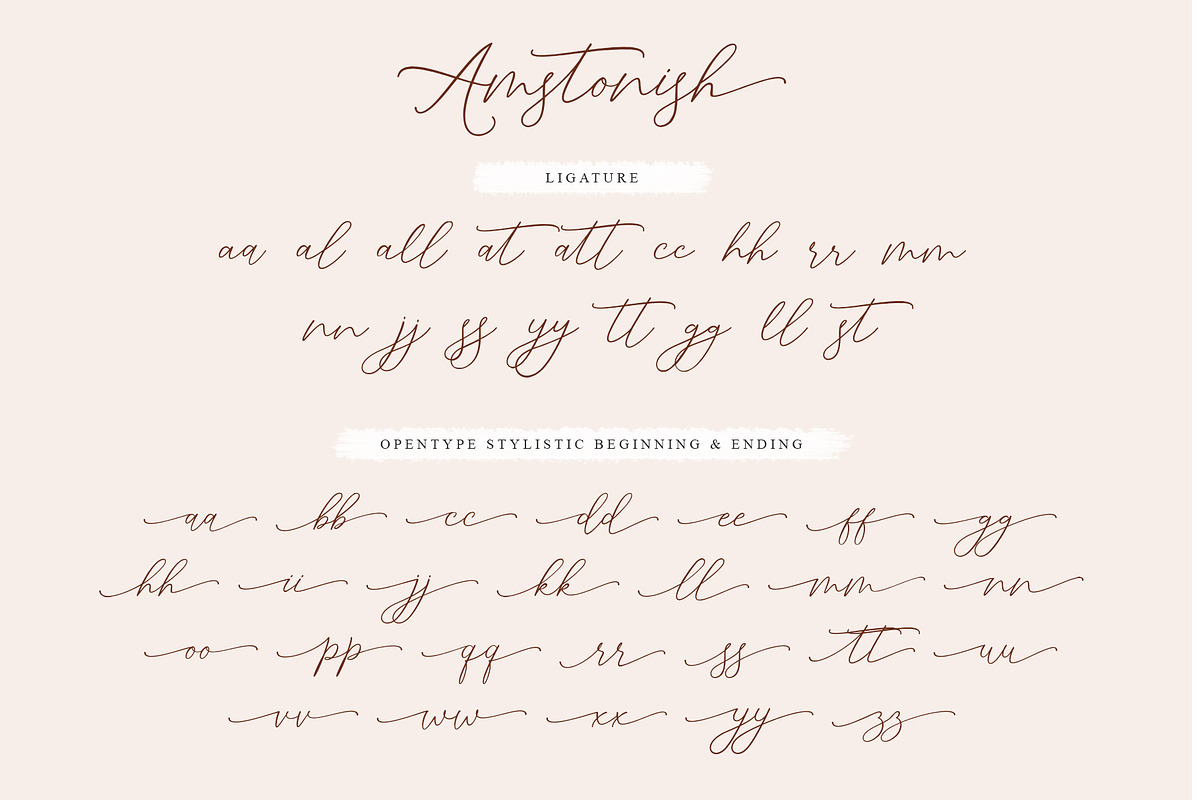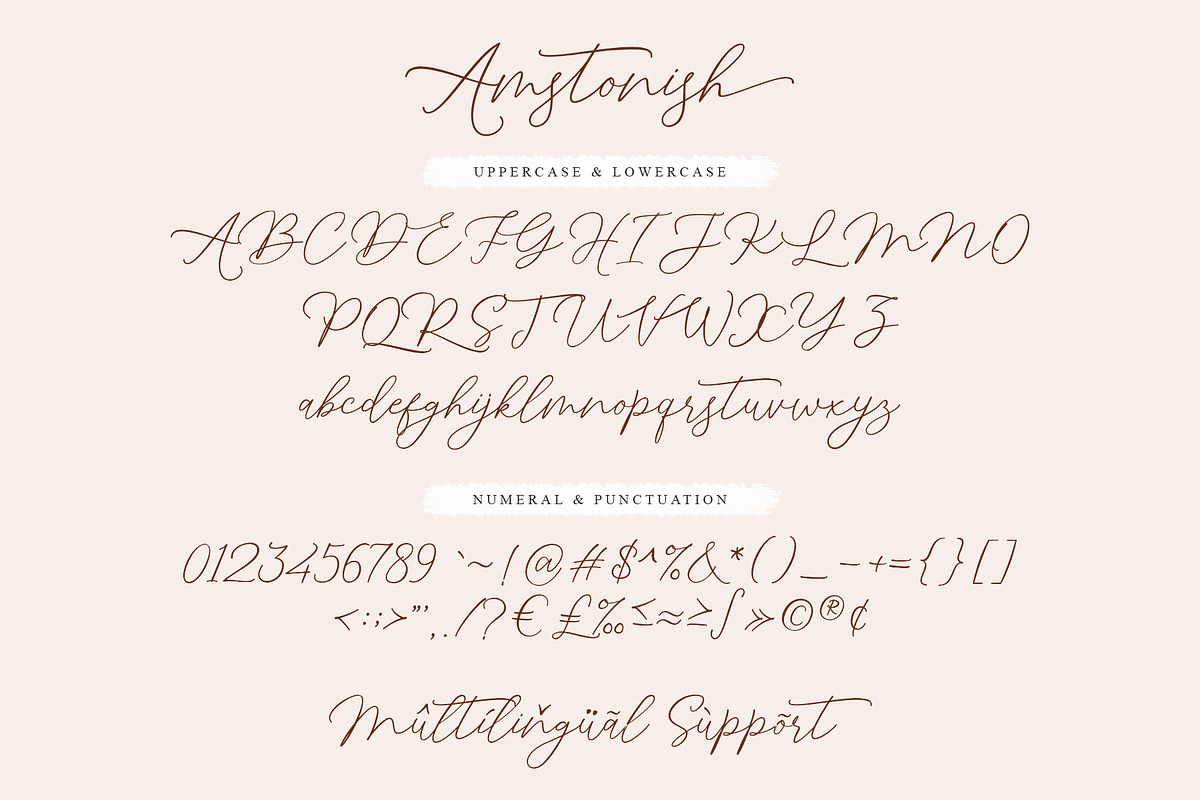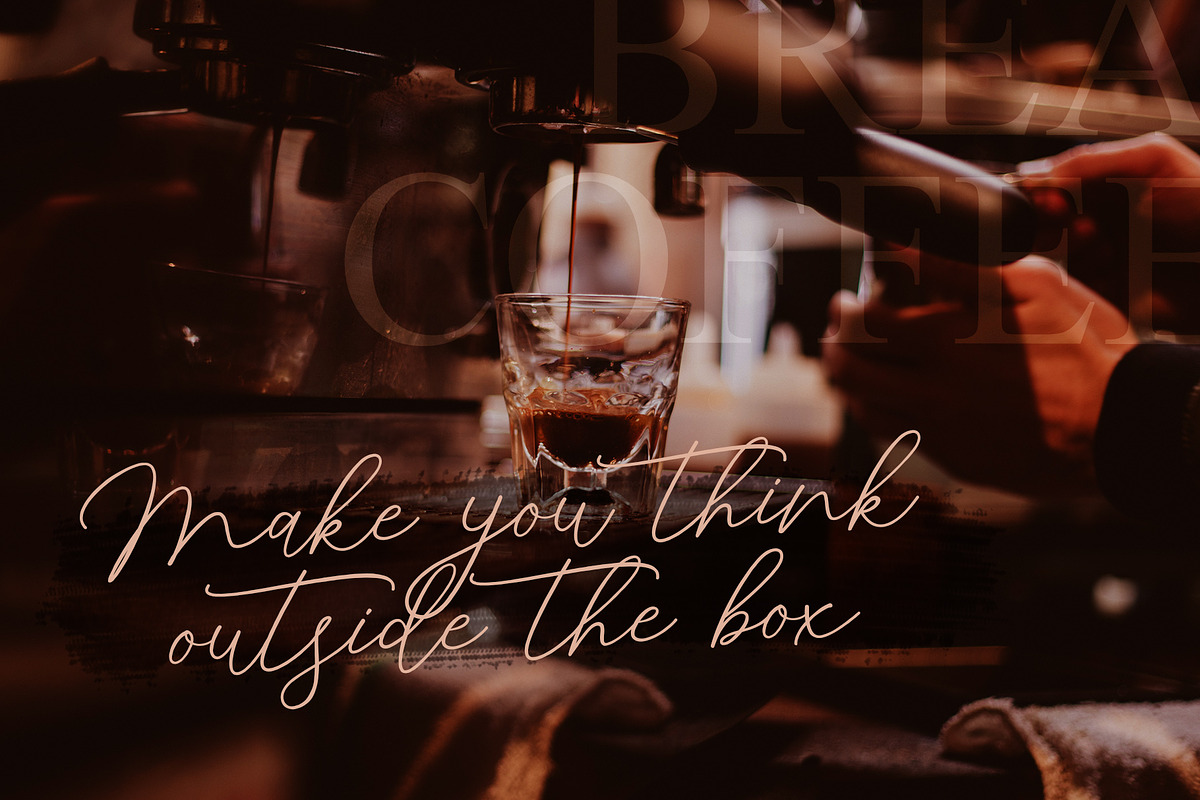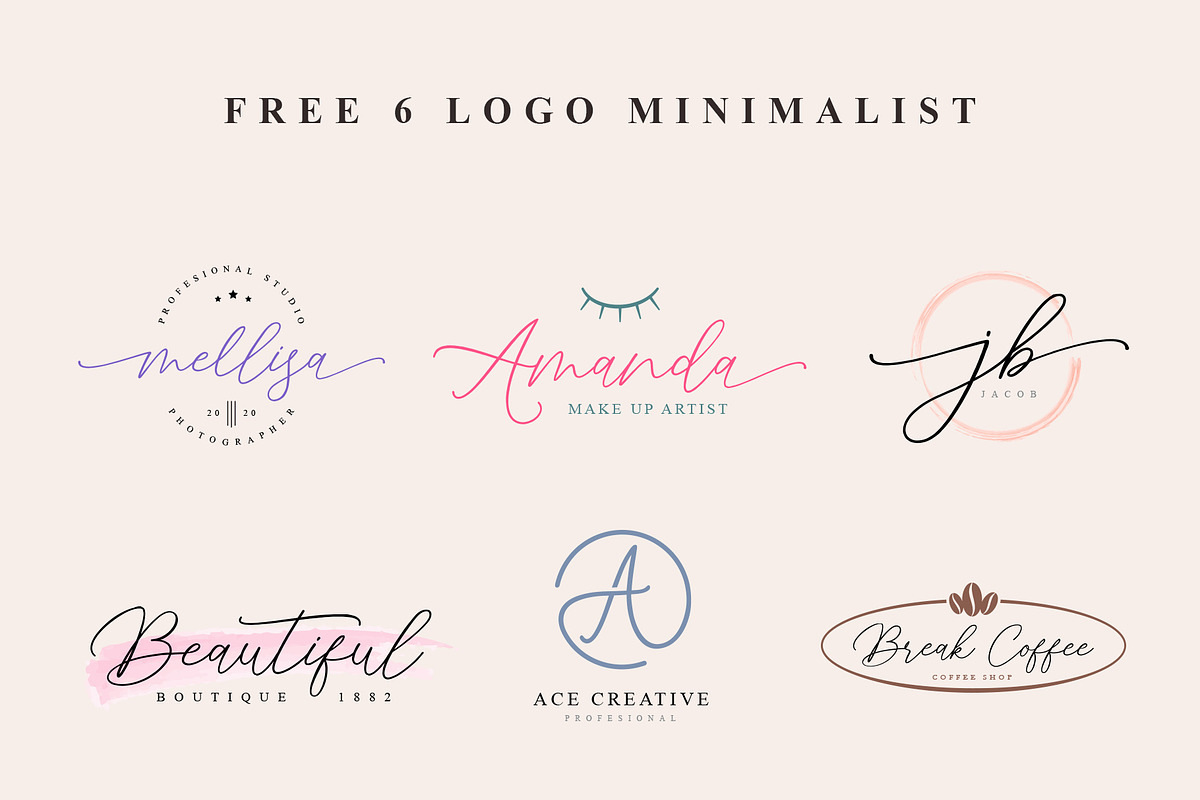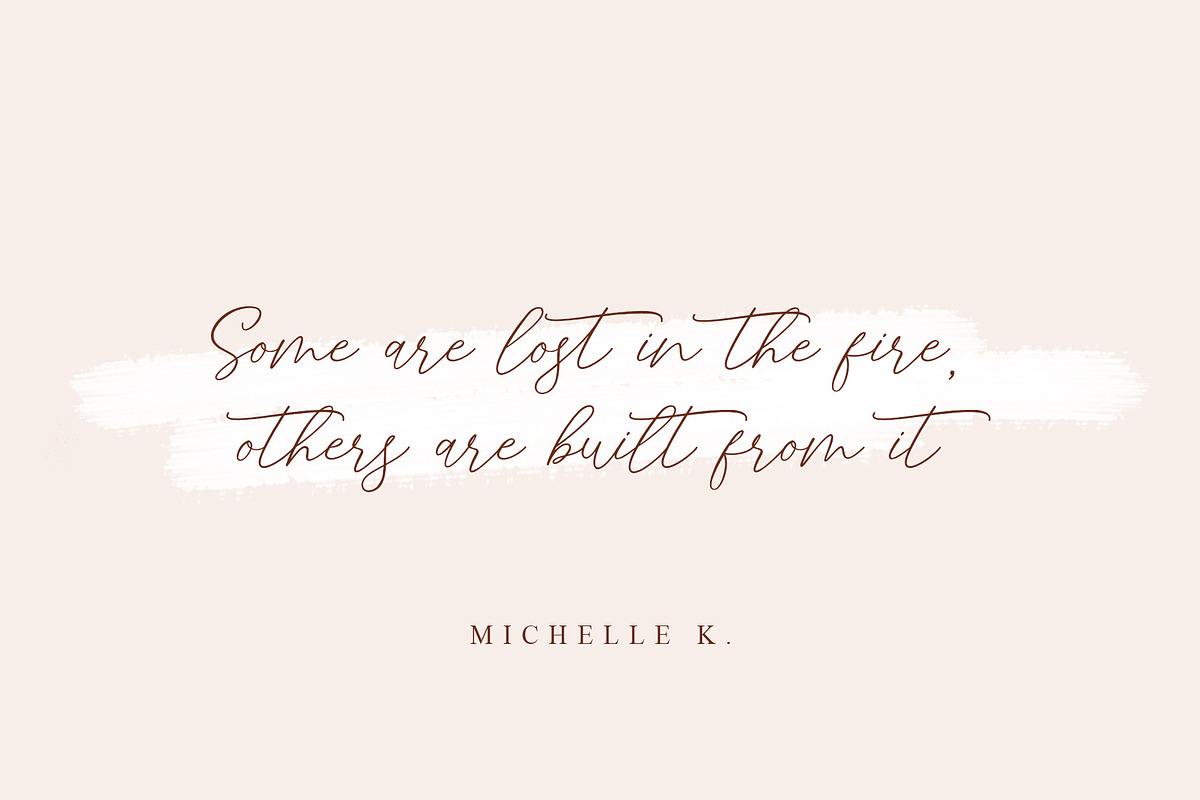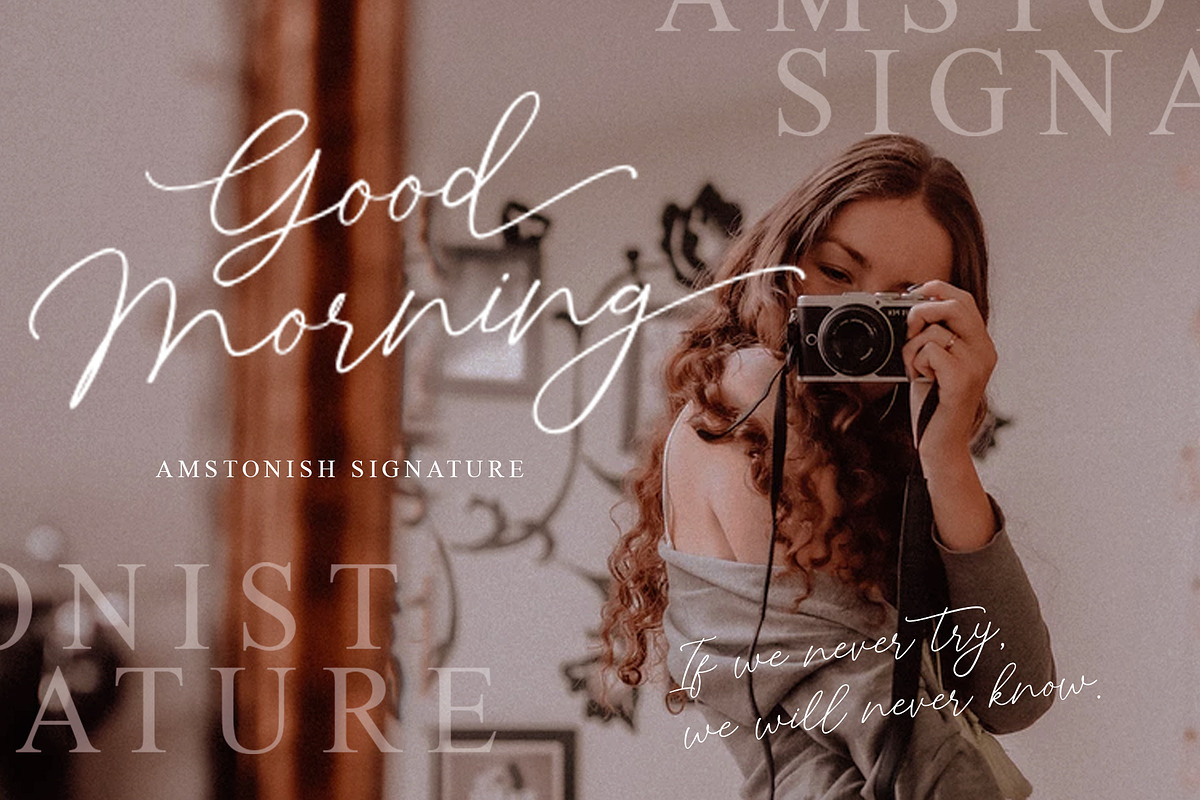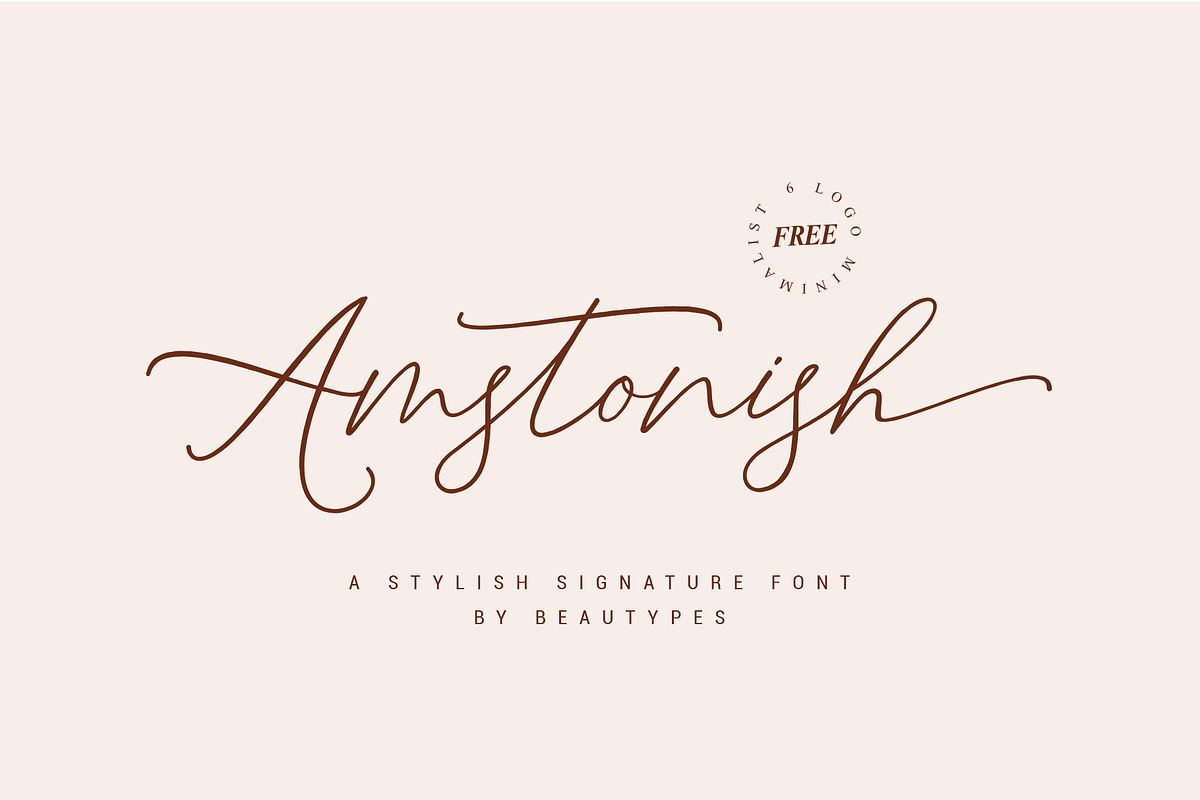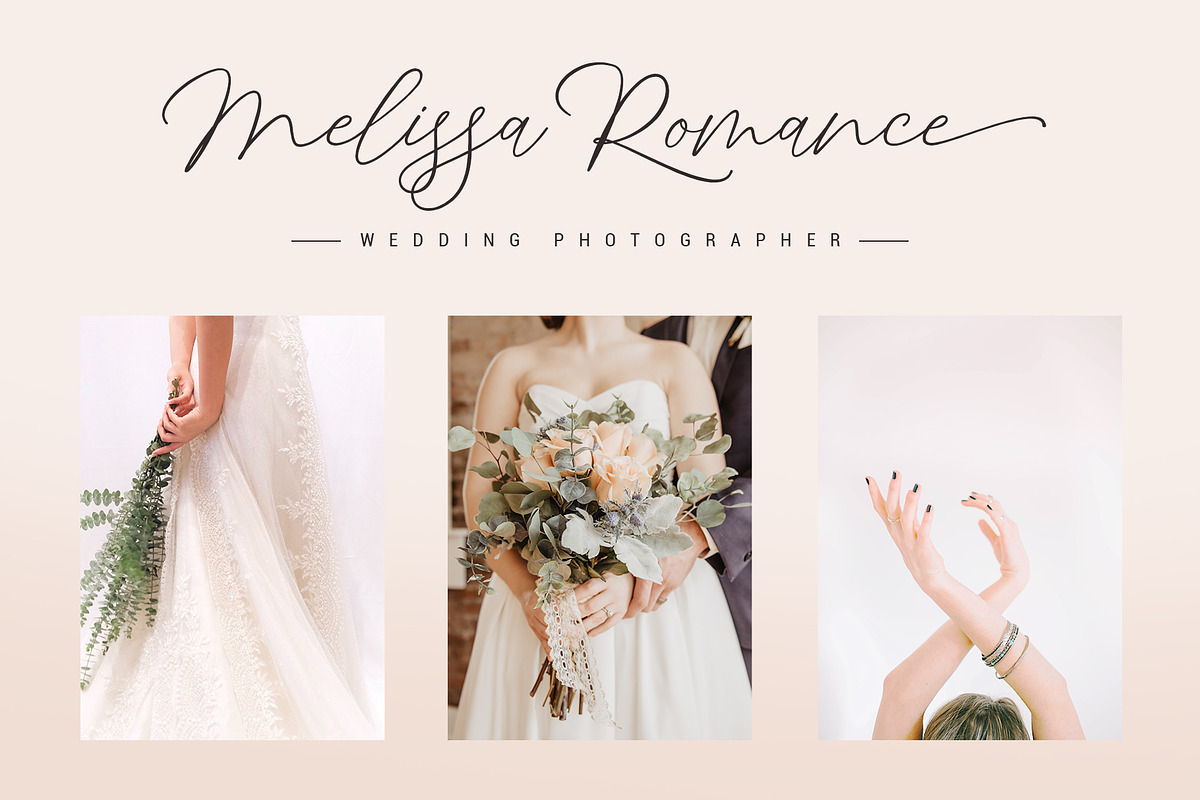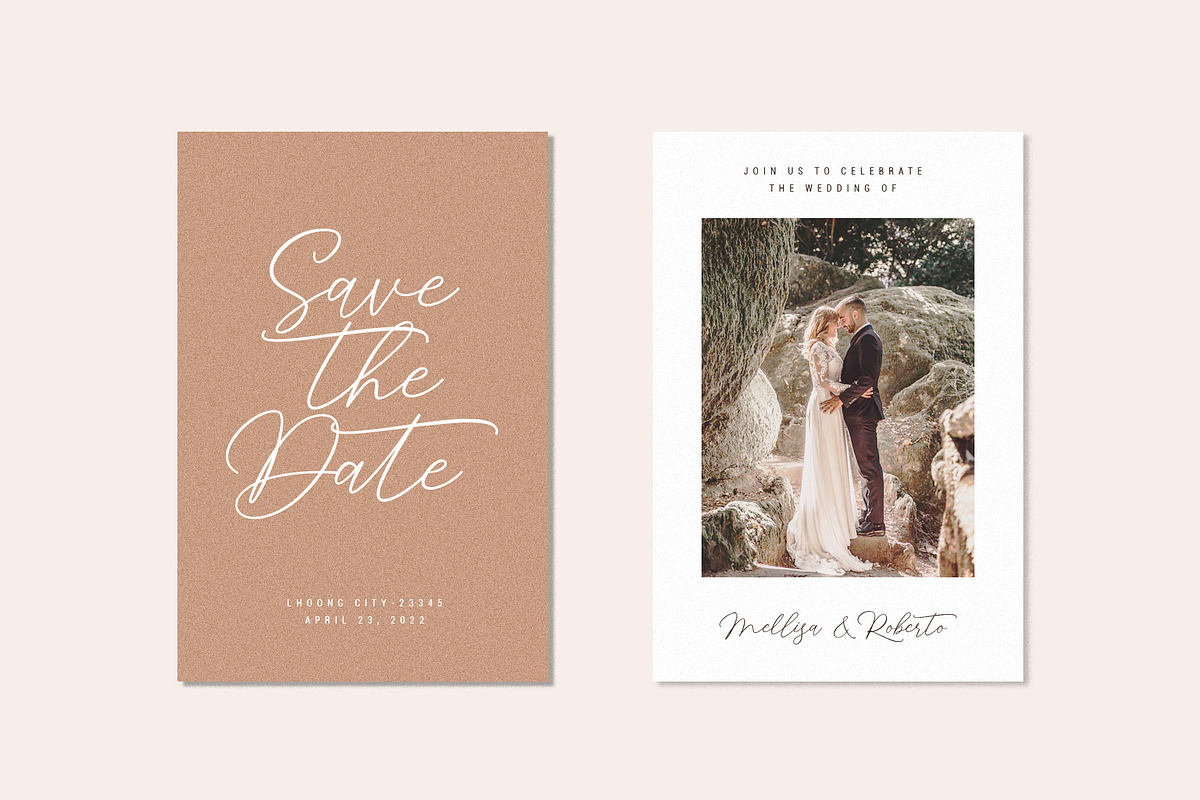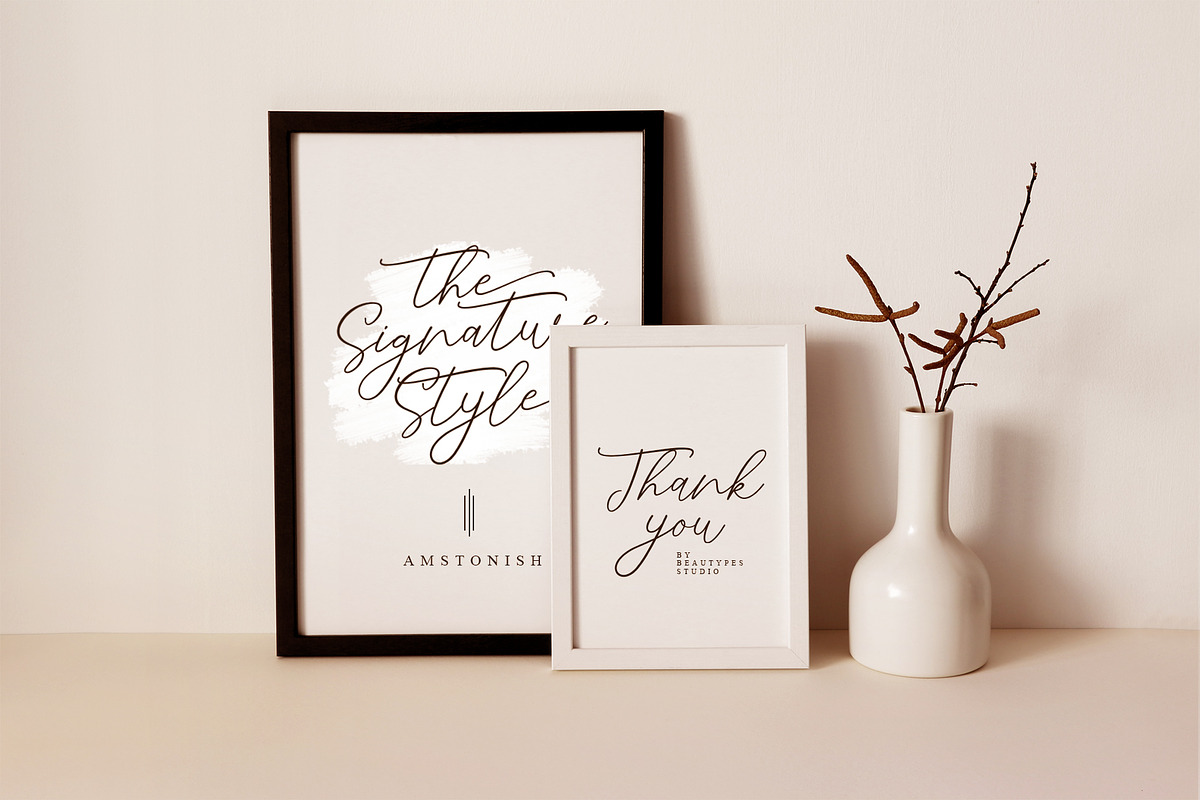
Amstonish Signature | Free 6 Logo
Amstonish is a delicate, elegant and flowing handwritten font. It has beautiful and well balanced characters and as a result, it matches a wide pool of designs. Add it to your most creative ideas and notice how it makes them come alive! This font is PUA encoded which means you can access all of the glyphs and swashes with ease! It features a varying baseline, smooth lines, gorgeous glyphs and stunning alternates.